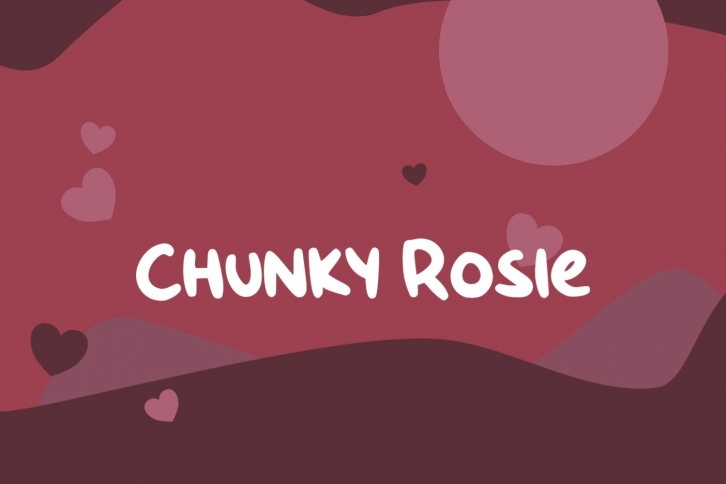
Chunky Rosie is a gorgeous font that was realeased on October 20, 2020. The font can be used in many style contexts and design environments. Perfect for invitations, magazines, websites, logos, and more! It was designed by Gartype Studio and the file size is 17.17 MB. Thanks for checking out this font!